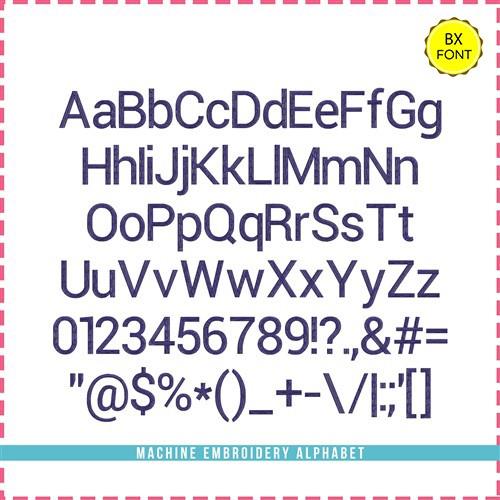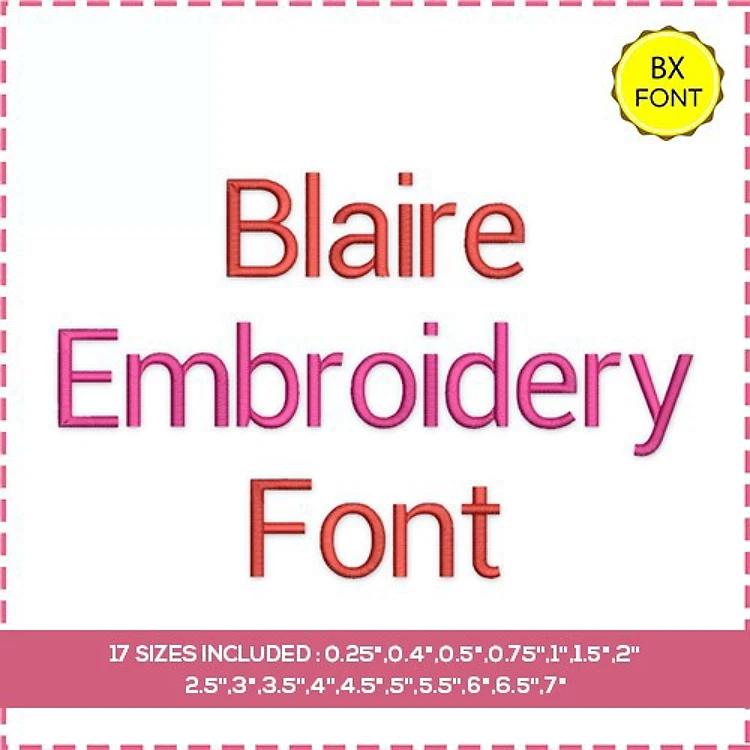
Maya Kreations is happy to present Blaire Embrilliance machine embroidery font which has Colorful machine embroidery font suitable for personalizing pillowcases or tote bags. The playful design displays 'Blaire Embroidery Font.' Available in BX font, Embrilliance, and other formats. included. If you would like to view more embroidery fonts and alphabets please search our embroidery fonts page.